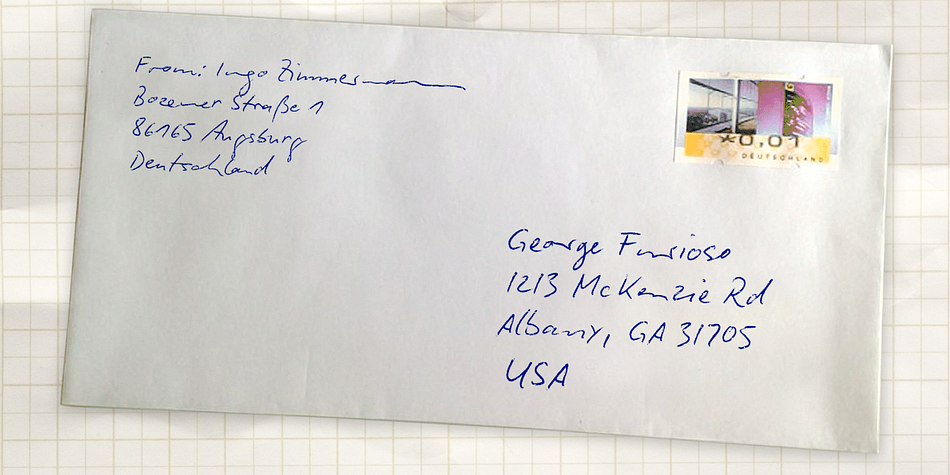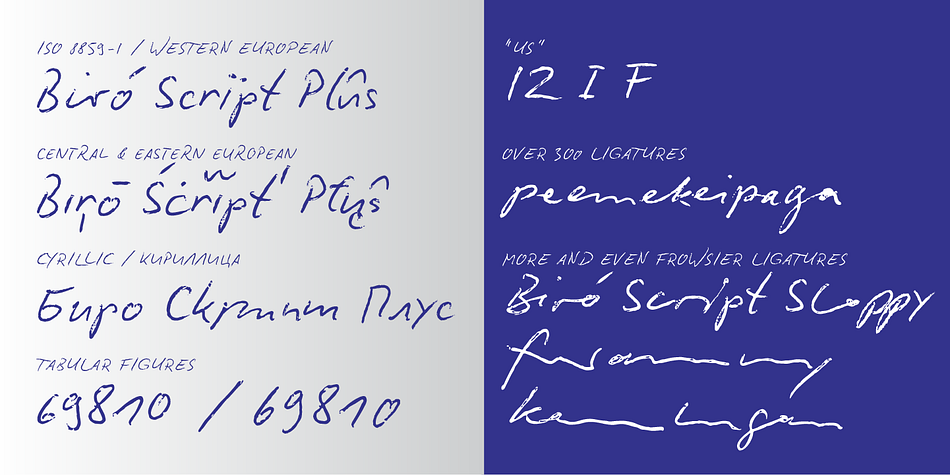
Biró Script Plus
Designed by Ingo Zimmerman, Biró Script Plus is a hand drawn font family. This typeface has six styles and was published by ingoFonts.
An authentic script from the tip of the ball point pen
This hasn’t been seen yet: A typeface which truly looks as if it were handwritten.
Biró Script is written freehand with a ball point pen. Finally a truly individual script! Biró Script includes more than 300 authentic ligatures in addition to the customary alphabet.
By the way, the most convincing effect is obtained with a font size of about 18 to 22 points, at which the thickness of the stroke is now about the same as that of a real ball point pen.